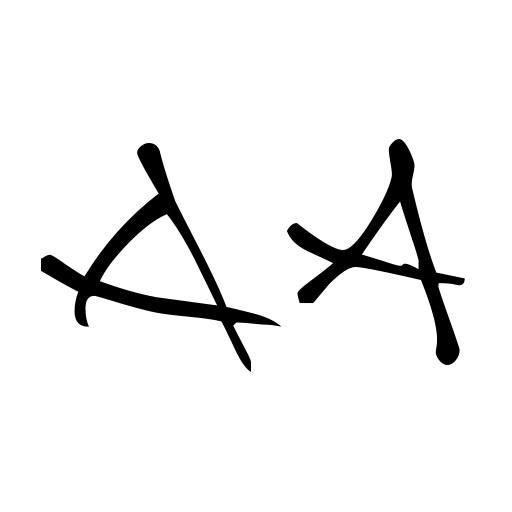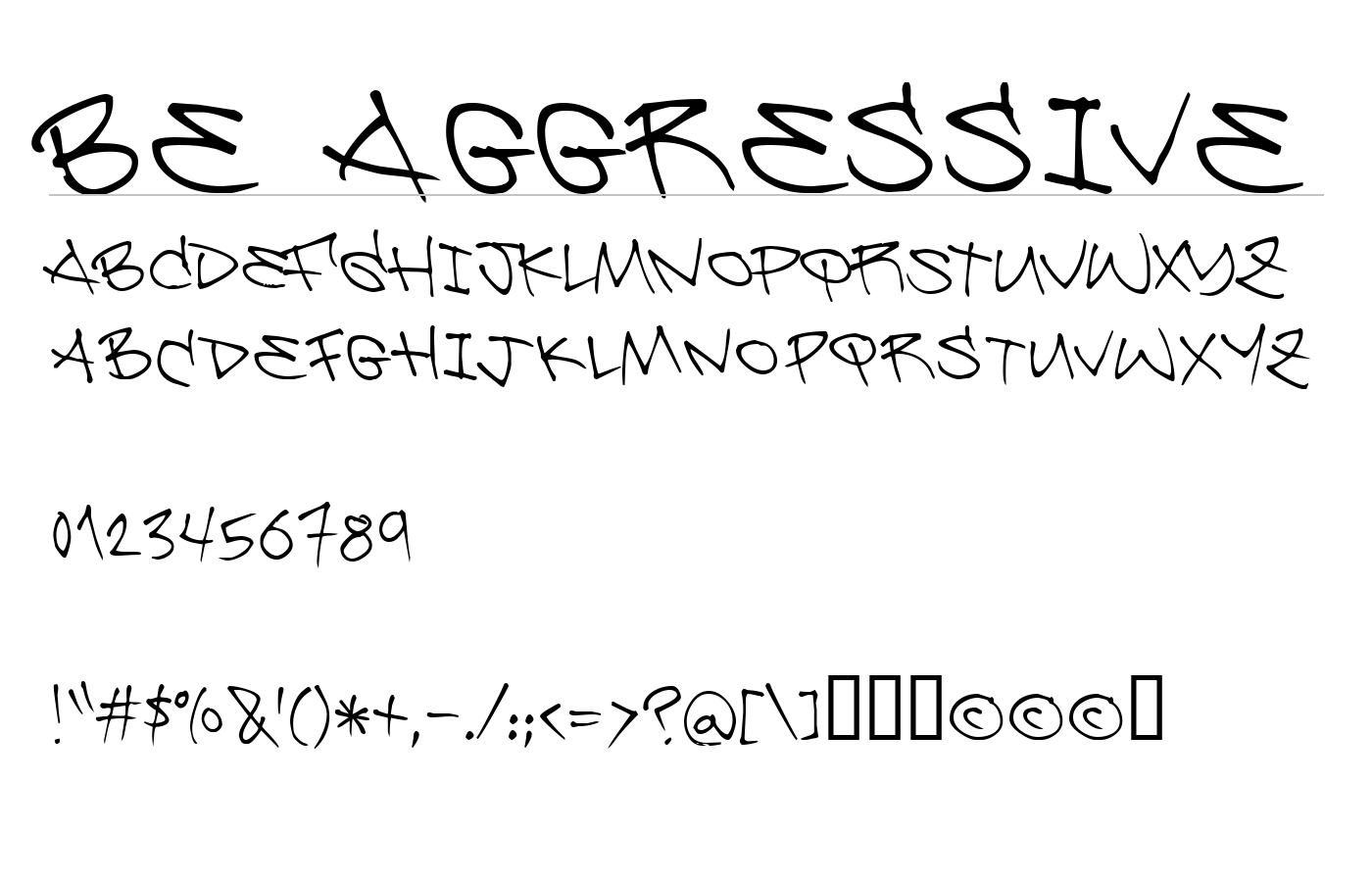
Be Aggressive Font is a bold, handwritten-style typeface with a dynamic, energetic feel. Its irregular, sharp strokes and lively letterforms convey a playful yet edgy personality, making it ideal for eye-catching headlines, posters, and creative branding that demands attention and conveys a sense of fun with attitude. This font works best in designs where a casual, expressive tone is desired rather than formal or highly polished aesthetics.
Be Aggressive Font